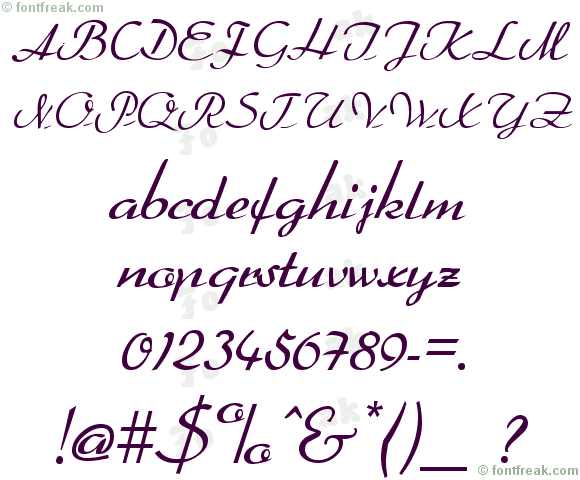
Arabella
The Arabella font by Dieter Steffmann is a beautifully crafted script typeface that embodies elegance and sophistication. Released in 2000 under a freeware license, this font stands out with its fluid and cursive strokes, making it an excellent choice for various creative projects. The visual characteristics of Arabella include a moderate stroke weight that balances readability with artistic flair, complemented by graceful curves and decorative flourishes that add a touch of charm. The spacing is well-considered, ensuring that each letter connects seamlessly while maintaining clarity.
Arabella is particularly well-suited for wedding invitations, where its romantic style can enhance the overall aesthetic. Additionally, it works beautifully for branding purposes, especially for boutique shops or artisanal businesses looking to convey a personal touch. The font can also be utilized in event flyers, where its eye-catching design will draw attention and convey a sense of celebration. Furthermore, Arabella can enhance restaurant menus, providing an inviting and upscale feel that can entice diners.
The target audience for this font includes graphic designers seeking to elevate their projects, small business owners aiming to create visually appealing branding, and content creators looking for a distinctive typeface that adds personality to their work.
What makes the Arabella font stand out is its unique blend of elegance and versatility, allowing it to adapt to various design contexts while maintaining its distinctive character. Its free availability as a freeware download further enhances its appeal, making it accessible for those looking to enrich their typographic resources. For anyone in search of an exquisite script typeface, the Arabella font free download is an opportunity not to be missed.